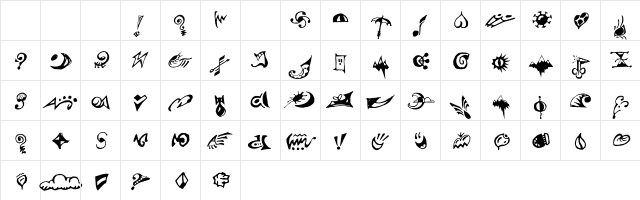
SuRealDingbats VolumeOne
Design Context for SuRealDingbats Typeface
SuRealDingbats is a composed and adaptable typeface that performs quietly and consistently across a wide range of design contexts.